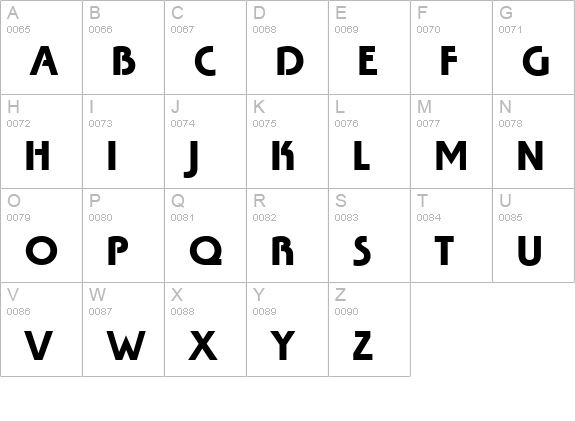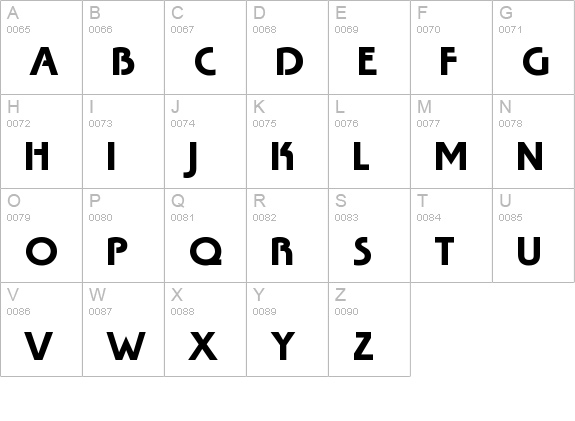
Tabasco-Regular is the standard, neutral variant in the Tabasco typeface family \xE2\x80\x94 well suited to general body text, paragraphs, and standard typographic work.
Tabasco-Regular font is a versatile and stylish typeface that exudes a sense of modernity and sophistication. With its clean lines and sleek design, this font is perfect for a wide range of projects, from branding to web design to print materials. Its balanced proportions and distinctive characters make it easy to read and highly legible, making it a great choice for both body text and headlines. The best part? Tabasco-Regular font is completely free to download at FontsMarket.com. This means you can use it in your projects without any restrictions or limitations, making it a valuable addition to your font collection. Whether you're a designer looking for a fresh new typeface or a business owner wanting to elevate your branding, Tabasco-Regular font is sure to impress with its unique style and versatility.